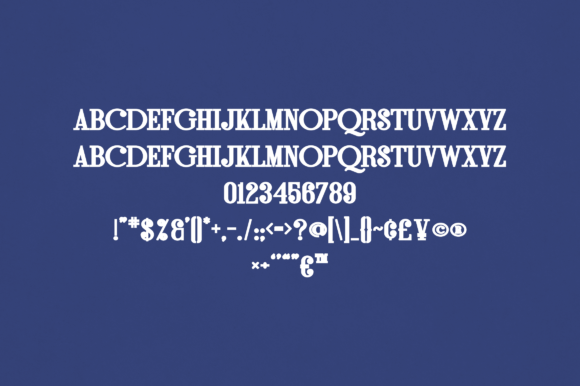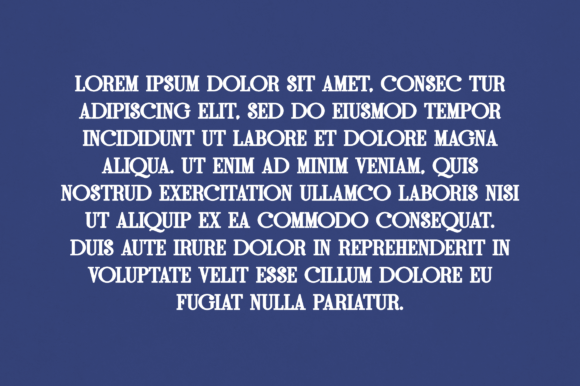
Introducing Enya Font: Elevate Your Typography with Elegance and Versatility
Are you tired of using the same old fonts for your design projects? Look no further than Enya Font, a stunning and versatile typeface that will add a touch of sophistication to any design. Enya is an elegant and versatile font that will make your typography truly unique, enchanting every logo, branding, headline, or plain text.
What Makes Enya Font So Special?
Enya Font is perfect for designers and crafters looking to add a touch of elegance to their projects. Its unique and stylish design makes it ideal for a wide range of applications, from branding projects and home-ware designs to product packaging and magazine headers. Whether you’re looking to create a luxurious brand identity or simply want to add a stylish text overlay to a background image, Enya Font is the perfect choice.
Key Features of Enya Font
- Elegant and Versatile: Enya Font is designed to be elegant and versatile, making it perfect for a wide range of design projects.
- Unique Typography: Enya Font features a unique and stylish design that will make your typography truly stand out.
- Perfect for Branding: Enya Font is ideal for branding projects, including logos, business cards, and letterheads.
- Suitable for Digital and Print: Enya Font is perfect for both digital and print applications, including website headers, social media graphics, and print materials.
Use Enya Font for Your Design Projects
Enya Font is perfect for a wide range of design projects, including:
- Branding Projects: Use Enya Font to create a luxurious brand identity that will elevate your business to the next level.
- Home-Ware Designs: Add a touch of elegance to your home-ware designs, including product packaging and labels.
- Magazine Headers: Use Enya Font to create stunning magazine headers that will grab the attention of your readers.
- Product Packaging: Enya Font is perfect for product packaging, adding a touch of sophistication to your products.
- Text Overlays: Use Enya Font as a stylish text overlay to any background image, perfect for social media graphics and website headers.
Why Choose Enya Font?
There are many reasons why Enya Font is the perfect choice for your design projects. Here are just a few:
- High-Quality Design: Enya Font is designed to the highest standards, ensuring that your typography looks professional and elegant.
- Easy to Read: Enya Font is easy to read, making it perfect for body text and headlines.
- Customizable: Enya Font is highly customizable, allowing you to adjust the font size, color, and style to suit your design needs.
- Unique and Stylish: Enya Font features a unique and stylish design that will make your typography truly stand out.
In conclusion, Enya Font is a stunning and versatile typeface that is perfect for designers and crafters looking to add a touch of elegance to their projects. Its unique and stylish design makes it ideal for a wide range of applications, from branding projects and home-ware designs to product packaging and magazine headers. With its high-quality design, ease of use, and customizability, Enya Font is the perfect choice for any design project.